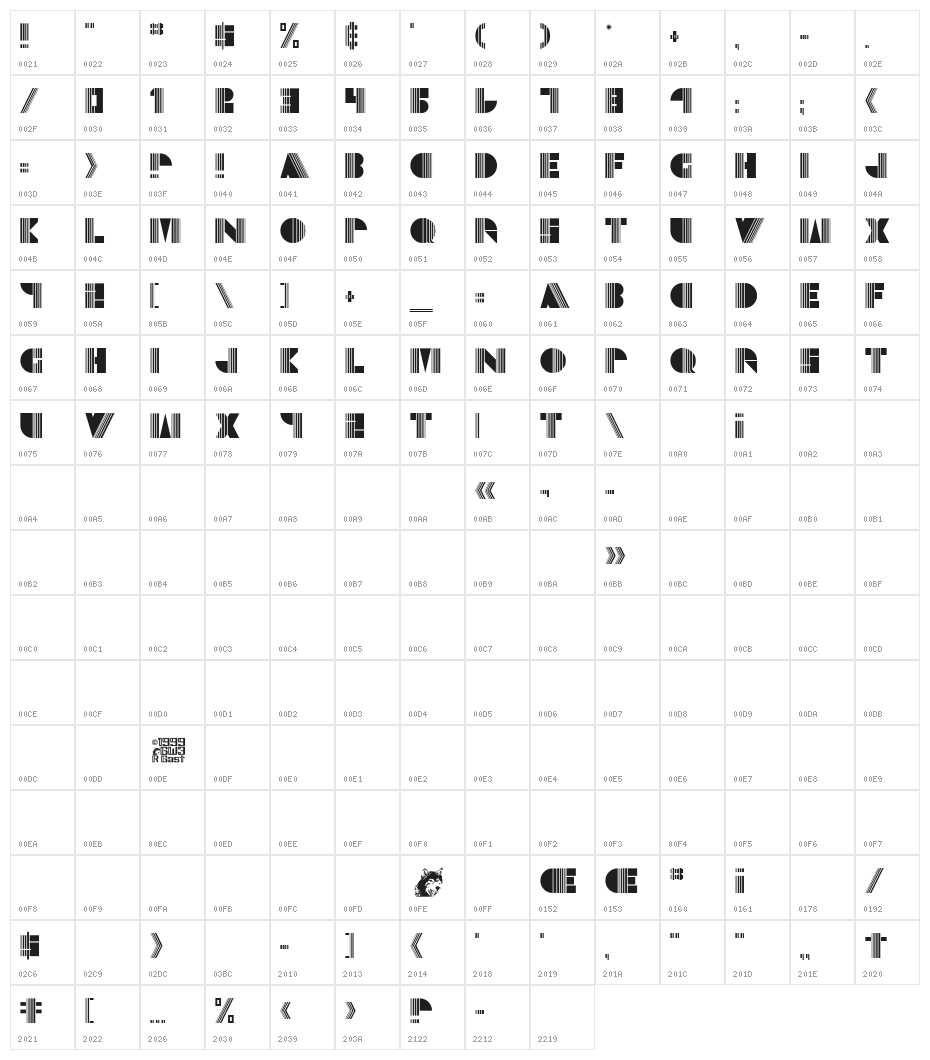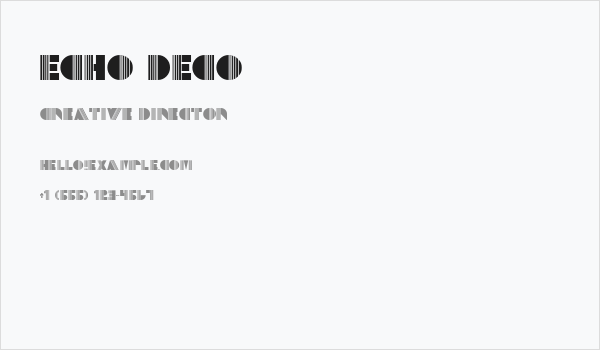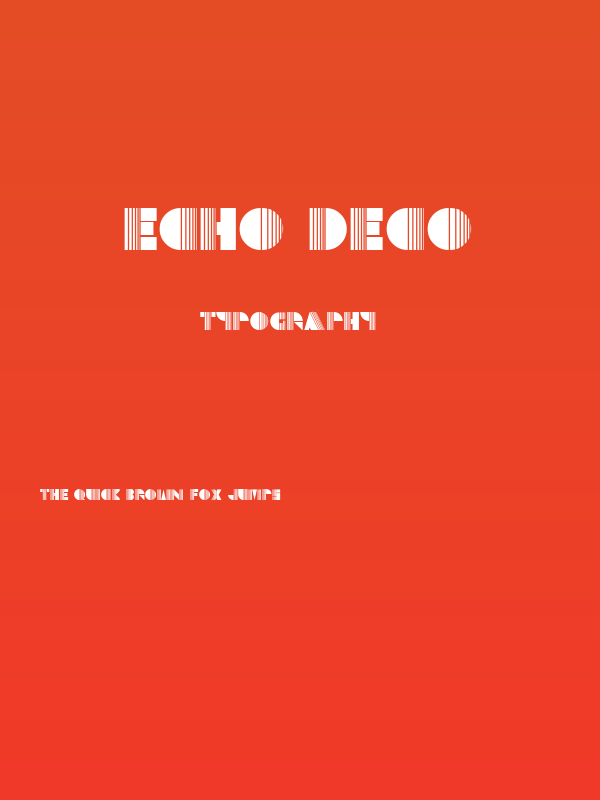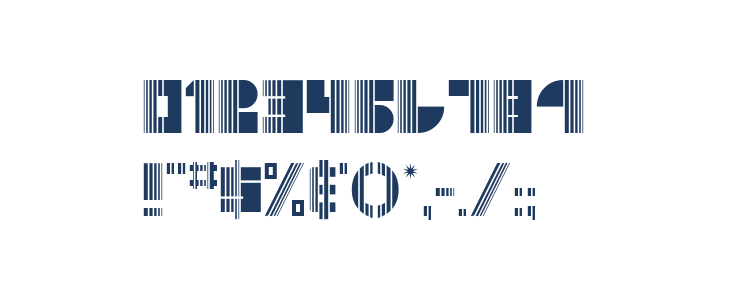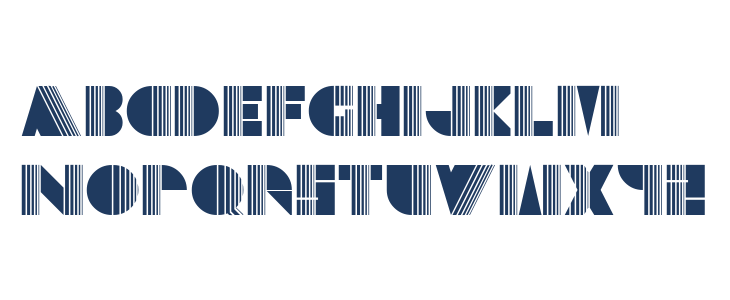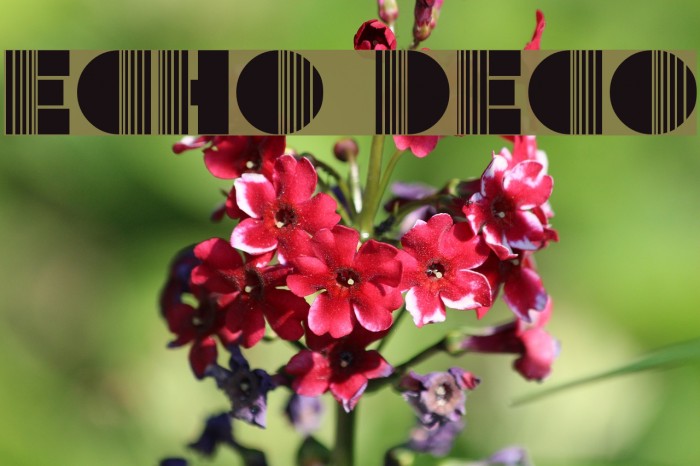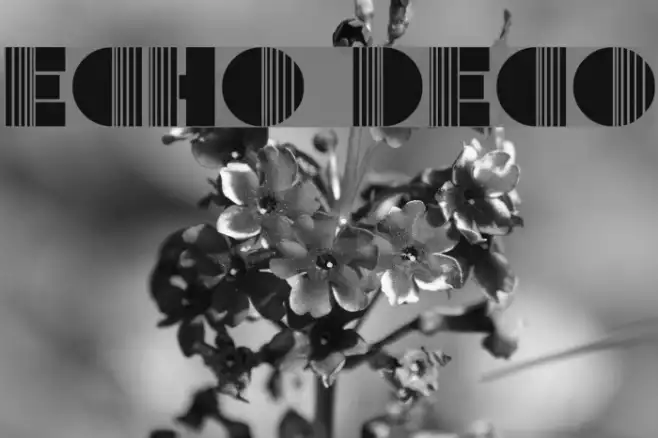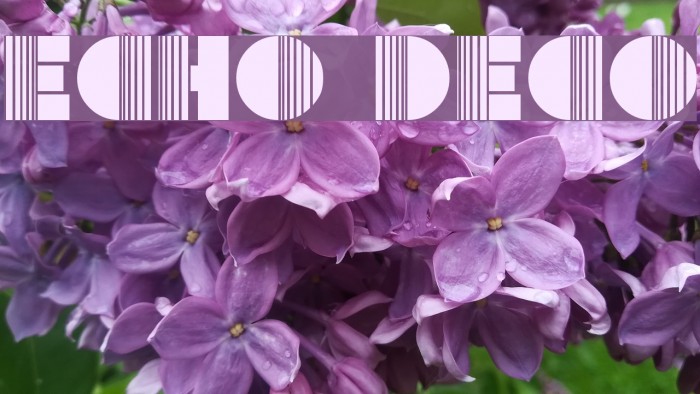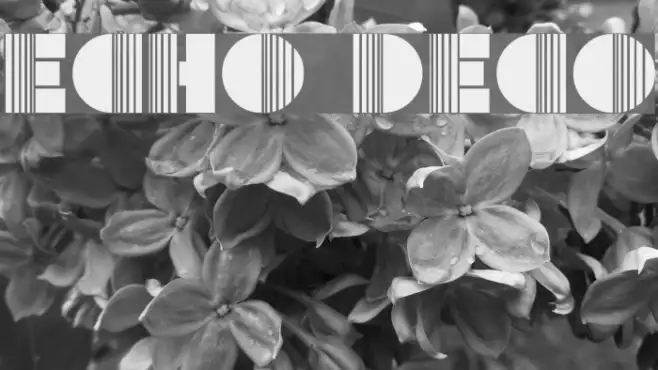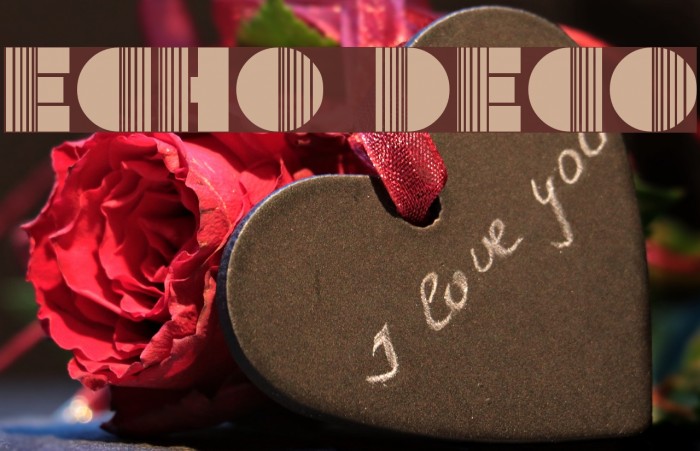
Echo Deco Font
Echo Deco Description
This font features a bold and striking design with a unique combination of solid and striped elements. Each character is crafted with a mix of thick, solid strokes and thin, parallel lines, creating a dynamic and eye-catching appearance. The geometric structure of the letters gives it a modern and futuristic feel, while the striped detailing adds an element of sophistication and complexity. The uppercase and lowercase letters maintain a consistent style, ensuring uniformity across different text compositions. Numbers and special characters are designed with the same attention to detail, making this font versatile for various applications.
| Proposed Projects | Ideal for branding, posters, album covers, and any project requiring a modern, eye-catching typeface. |